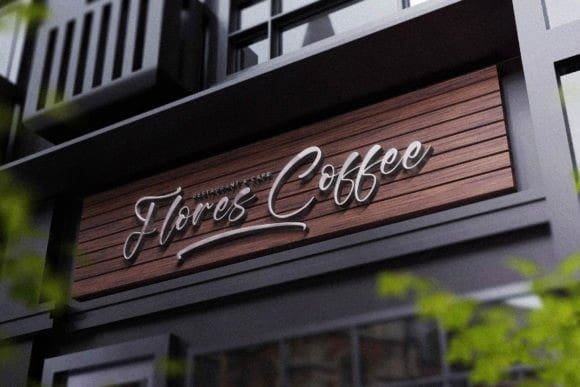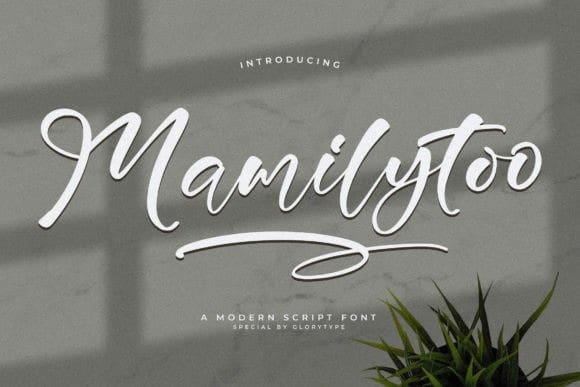
Mamilytoo Script Font
Mamilytoo Script Font is a modern script font suitable for any design project. You can use it for logos, branding projects, homeware designs, product packaging, mugs, quotes, posters, shopping bags, t-shirts, book covers, name cards, invitation cards, greeting cards, labels, photography, watermark, special events, and all your other lovely projects that need a beautiful script taste.